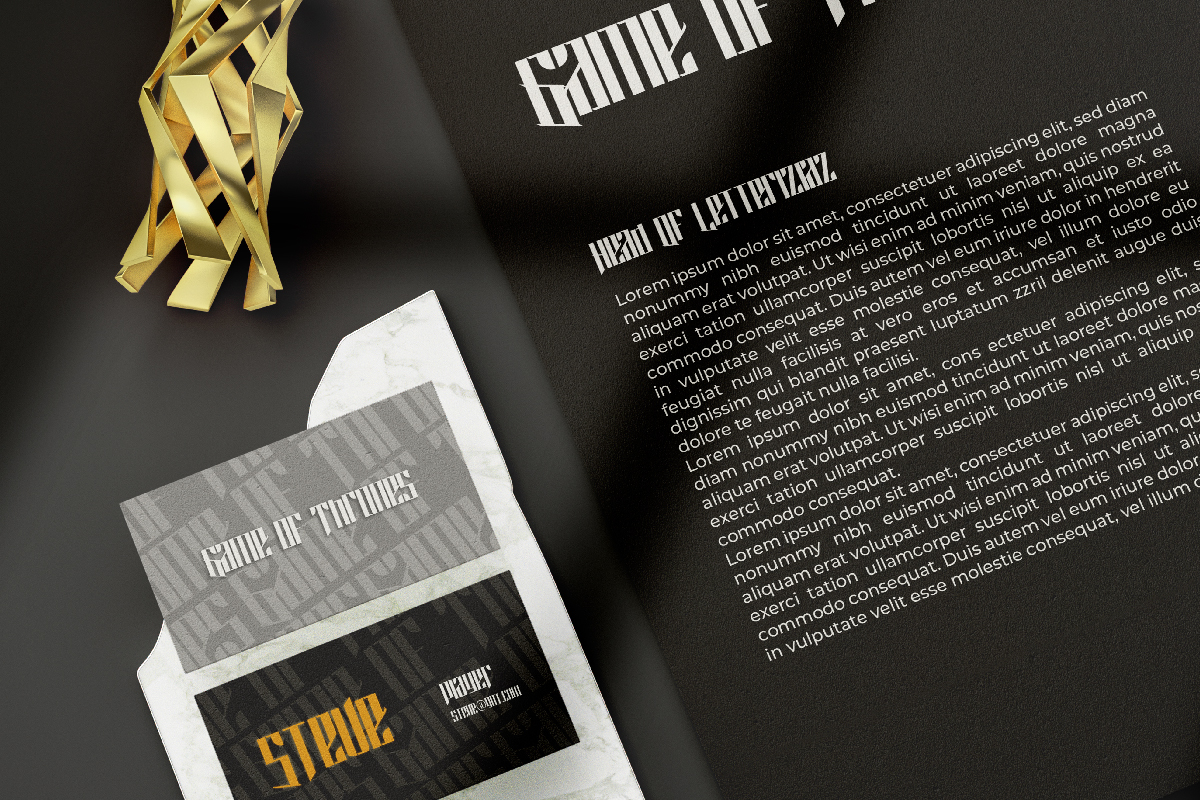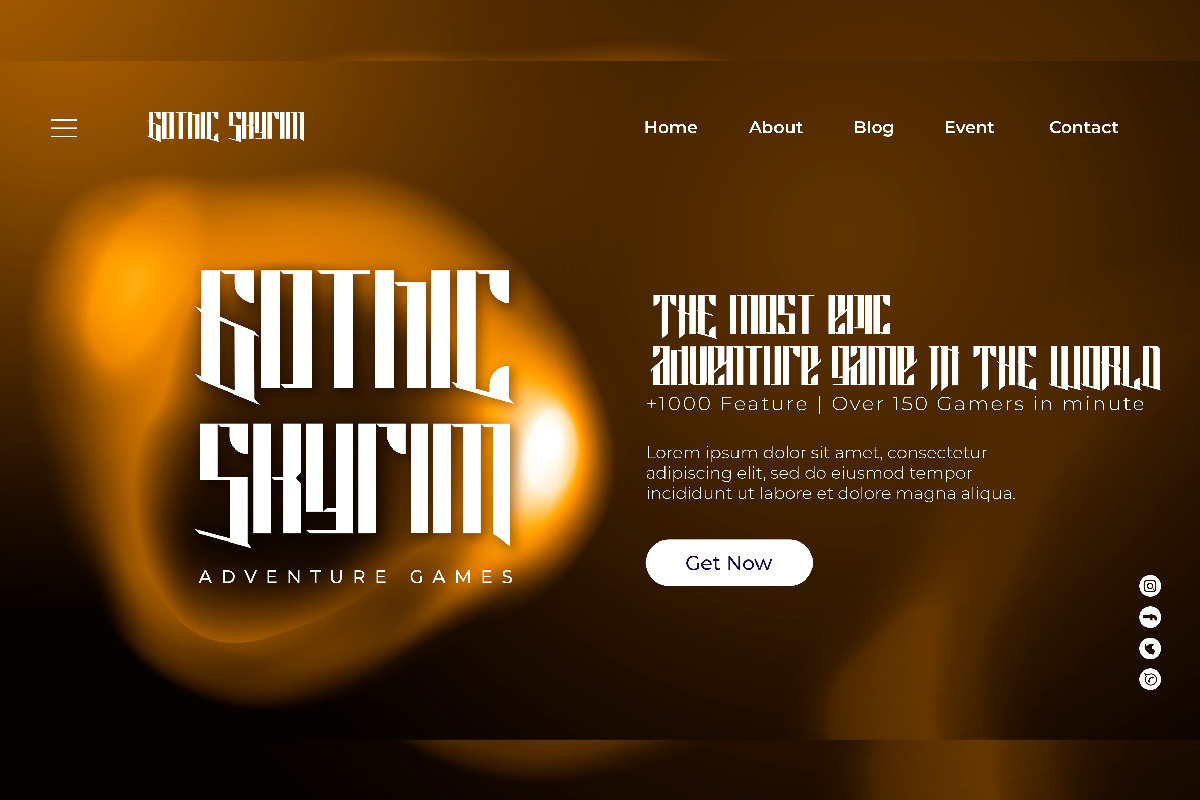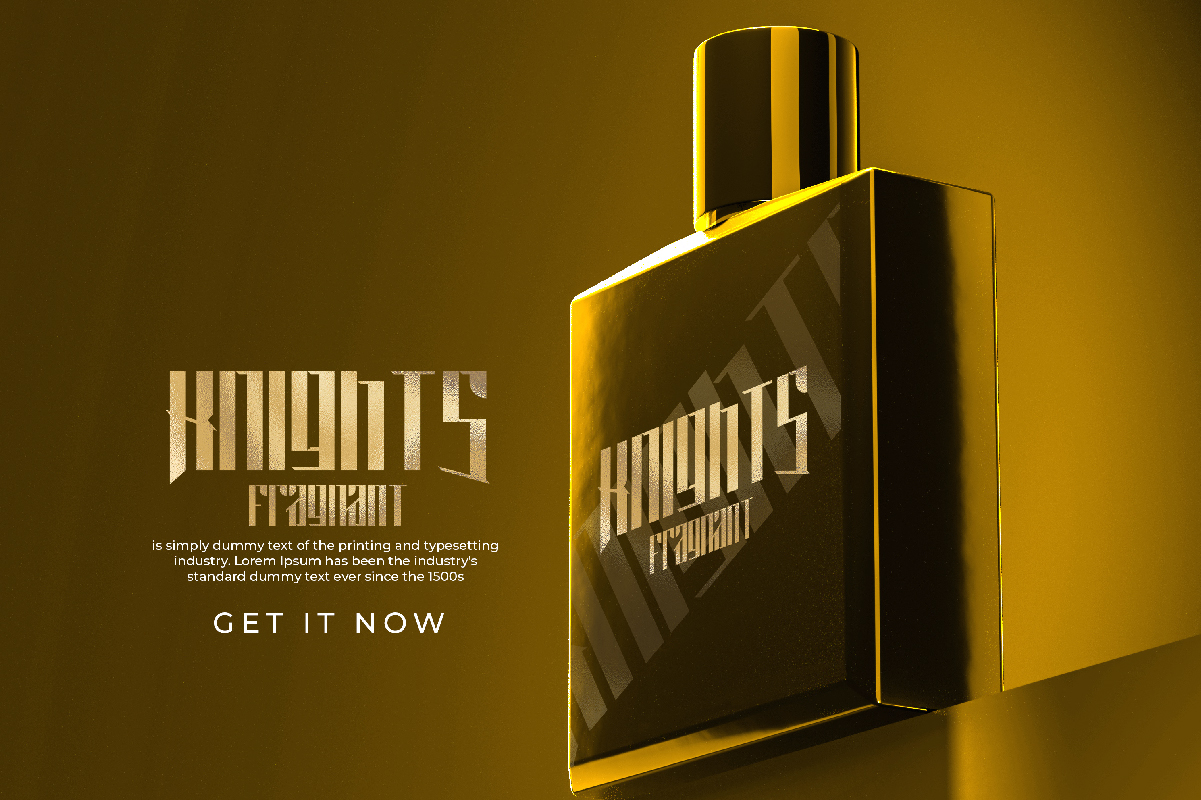
Game Nation Font
Game Nation Display Font
This font is a display font with modern blackletter look. Game Nation will be awesome for business card, games, product packaging, race, sport, t shirt, website etc. This font is crafted with boldness in every letter so it is meant for the perfect goth look for a look that attracts and wows its users!
Game Nation Font includes full set of Uppercase and Lowercase Basic Characters, Numerals and Punctuation. This font also it contains alternatives to make it flawless set font characters to perfectly make awesome look that add more aesthetic to perfect your extraordinary project.